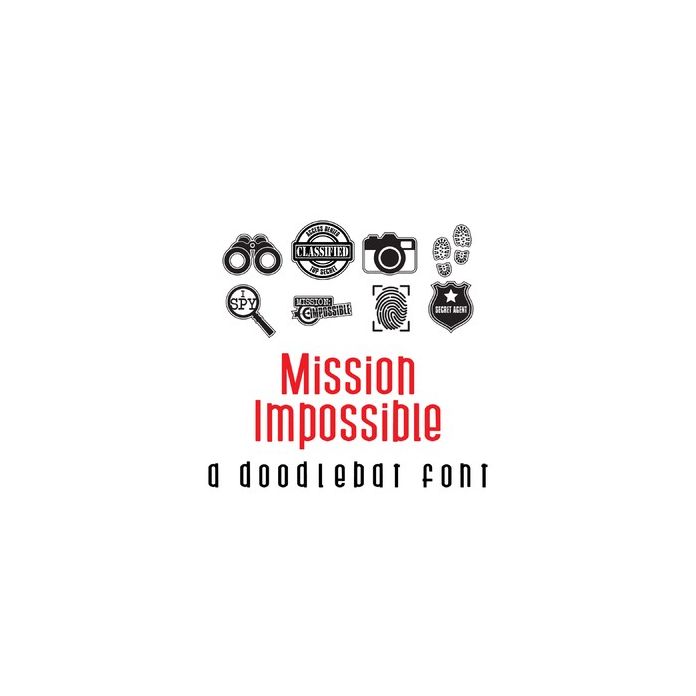
Mission Impossible Doodlebat Font
This fun doodlebat font features 26 spy themed images perfect for parties, crafts, gifts, camps, decor, scrap book pages, planner stickers and more!